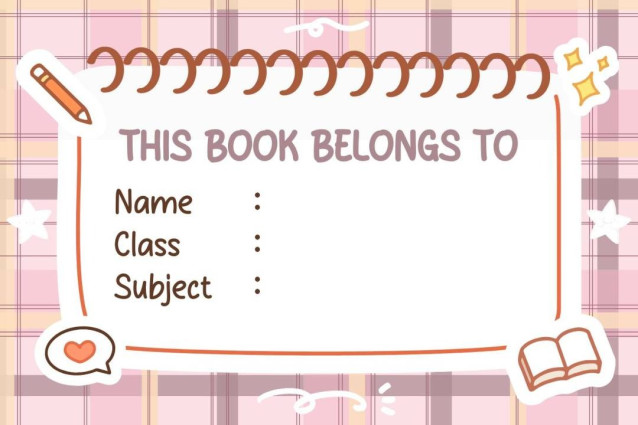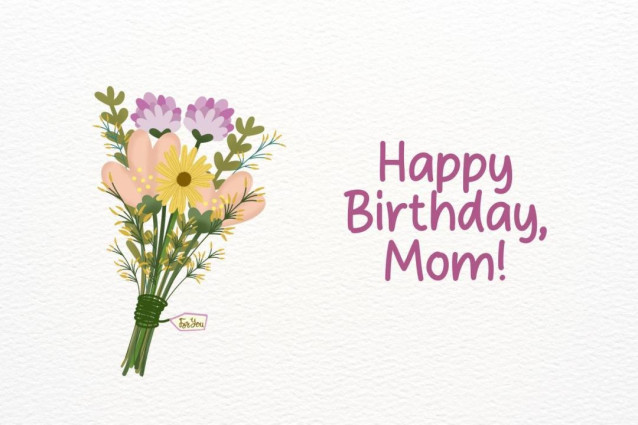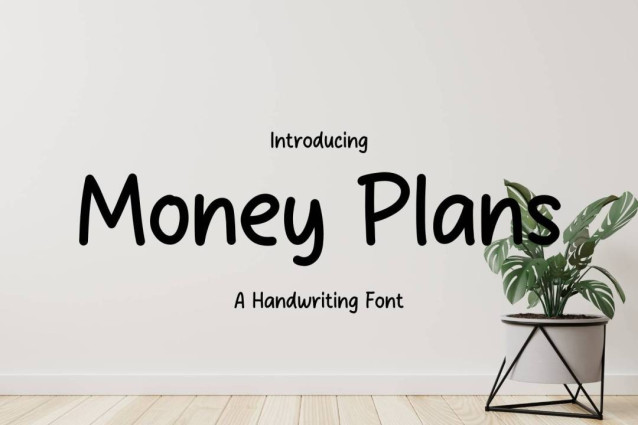
Money Plans Font
Money Plans Font is a simple and friendly handwritten font. Its natural and unique style makes it incredibly fitting to a large pool of designs. The only limit is your imagination!